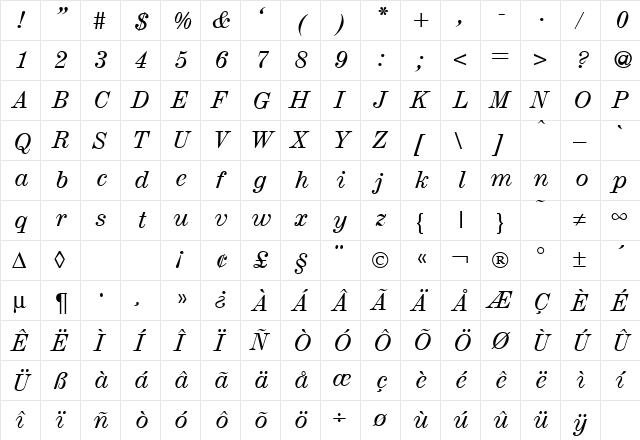
Magazine RegularItalic
Design Context for Magazine Typeface
Magazine offers clean, dependable letterforms without strong stylistic allegiance, making it a practical choice for designers who need flexibility. The slanted form adds forward momentum and visual energy.
Pro Tip: Try Magazine for annotation and caption copy alongside an upright companion — the contrast in angle creates a dynamic but ordered typographic system.